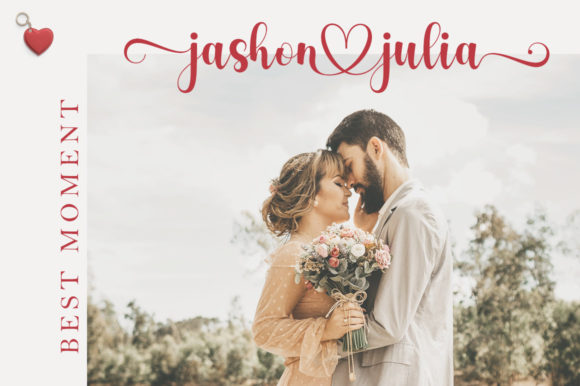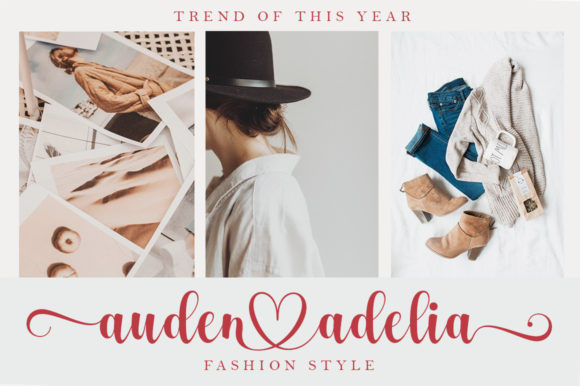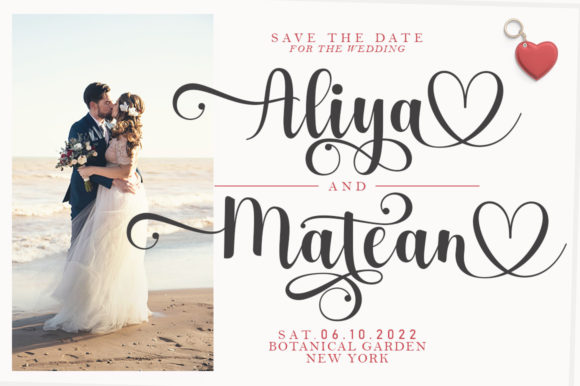
Introduction to Hey Julia Font
Hey Julia is a lovely and delicate script font that exudes elegance and class.
This font is PUA encoded which means you can access all glyphs and swashes with ease .
Key Features of Hey Julia Font
Why Choose Hey Julia Font?
Hey Julia Font offers exceptional quality and versatility, making it a valuable addition to your design toolkit. Whether you’re creating for personal projects or commercial use, Hey Julia Font delivers professional results.